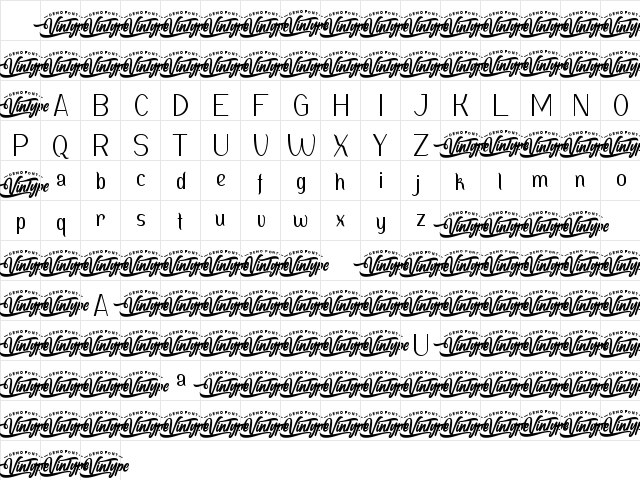
Complete Morning Person Demo Regular glyph index. Displaying only characters natively supported by Morning Person Demo Regular font.
Morning Person Demo is a composed and adaptable typeface that performs quietly and consistently across a wide range of design contexts.